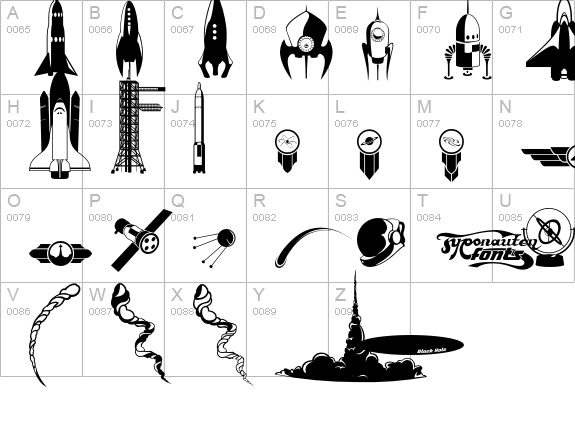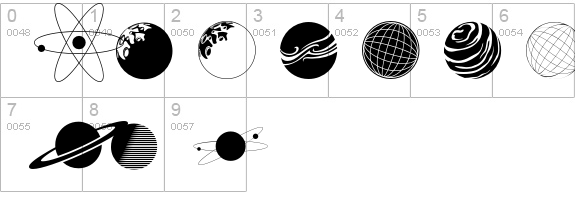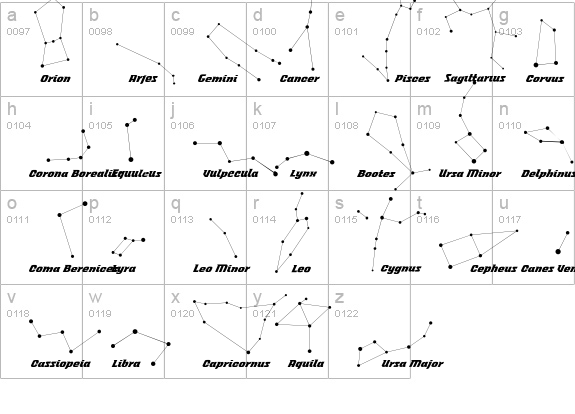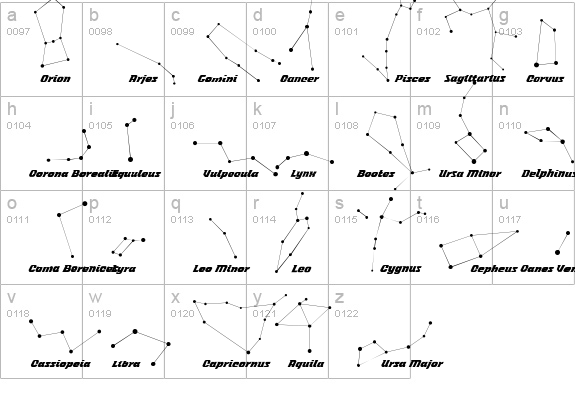
Spacelord Zero Font Details
Spacelord Zero font is a futuristic and bold typeface that exudes a sense of space-age adventure and innovation. With its sleek lines and sharp edges, this font is perfect for projects that require a modern and sci-fi aesthetic. The unique design of Spacelord Zero sets it apart from traditional fonts, making it a standout choice for headlines, logos, and other striking visual elements. What makes Spacelord Zero font even more appealing is that it is available for free download at FontsMarket.com. This means that you can easily access and use this stylish font in your creative projects without any cost. Whether you're a designer looking to add a touch of flair to your work or a hobbyist seeking to experiment with new fonts, Spacelord Zero font is a fantastic option that won't break the bank. Download it today and elevate your designs to new heights with this cutting-edge typeface.